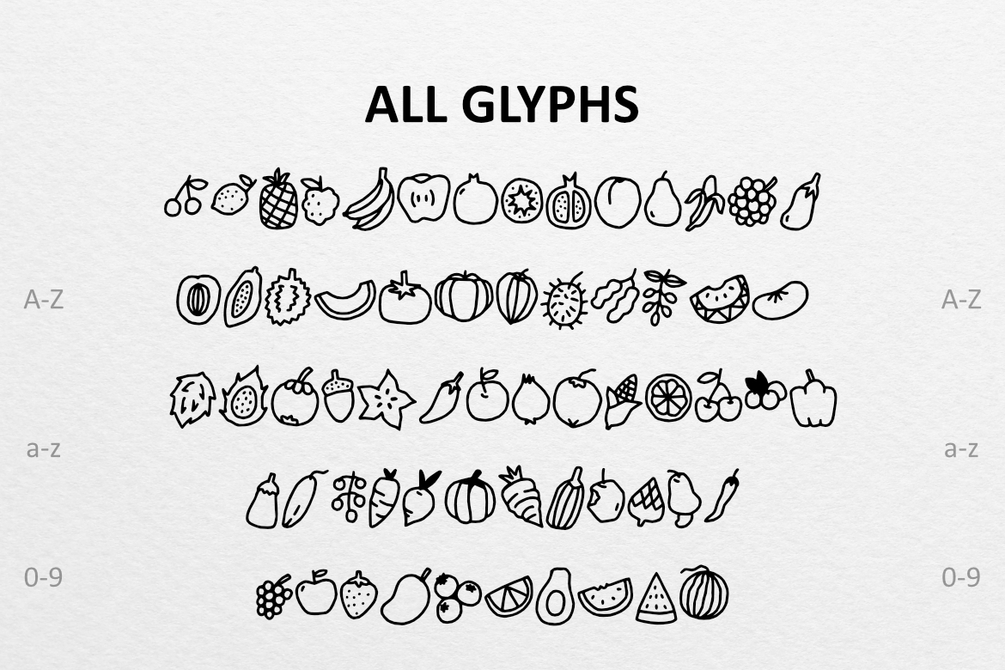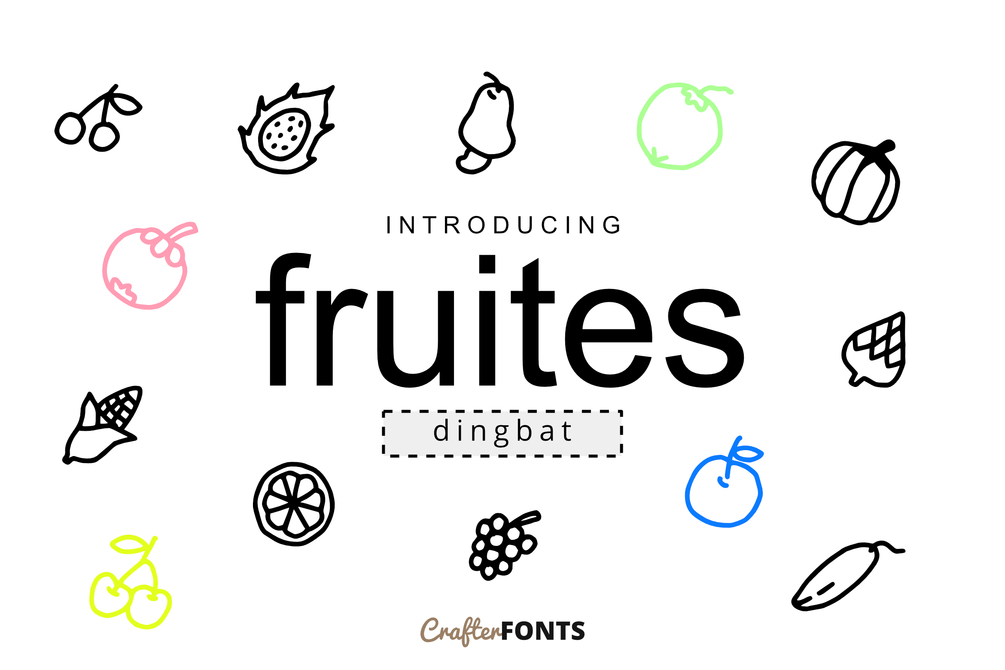
Fruites Doodle Dingbat
Simple fruites doodle dingbat, suitable for many project, logo, ornament etc. Contain 62 symbols as the preview above.
Basic Latin a-z, A-Z, 0-9